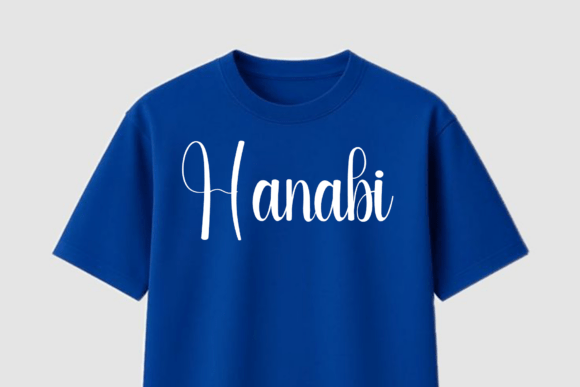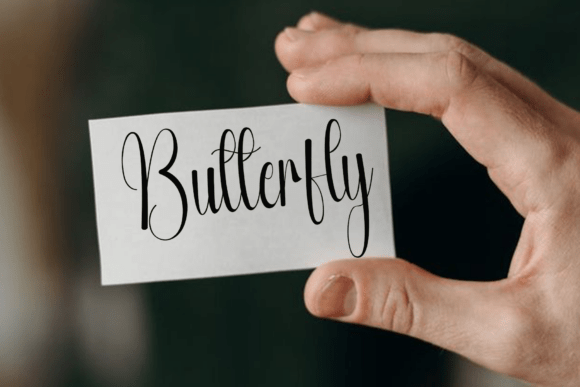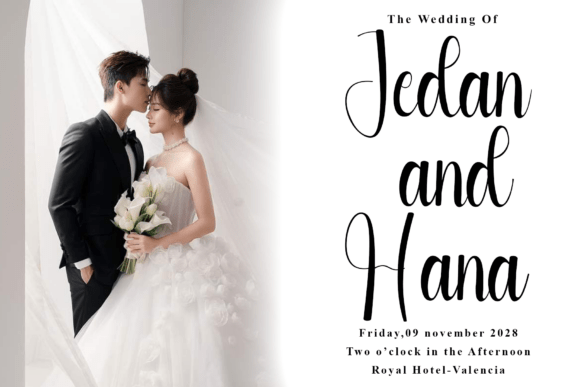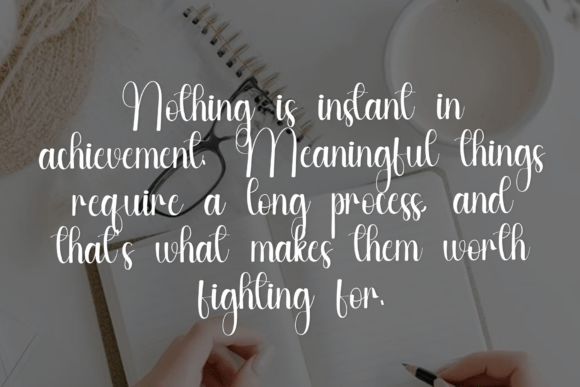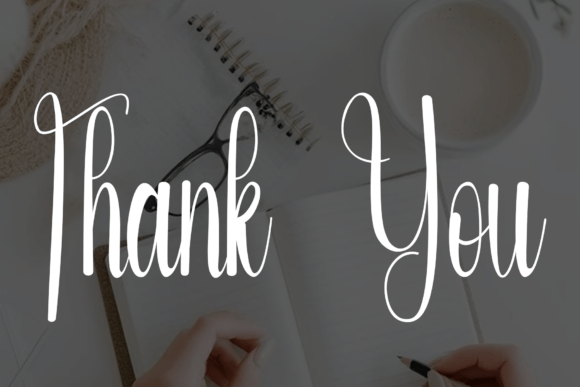
Introduction to Journals Font
As designers, we’ve all been there – staring at a blank page, trying to find the perfect font to capture the essence of our creative project. The search is over. Say hello to Journals Font, a stunning handwritten script that will elevate your designs and leave a lasting impression. Whether you’re working on a lifestyle branding project, creating a digital planner, or crafting a romantic wedding invitation, this versatile font is sure to bring a touch of elegance and sophistication to your work.
With its fluid loops and rhythmic baseline, Journals Font is a design resource that’s as beautiful as it is functional. Its high-quality design makes it perfect for designers looking for a professional yet deeply human aesthetic. And the best part? This beautiful font is available for free download, complete with a transparent background, making it easy to integrate into your designs.
Key Features of Journals Font
- High-quality font with a unique, elegant design suitable for creative projects.
- Perfect for use in journaling, scrapbooking, and other creative projects where a beautiful, elegant font is desired.
Honest Review: Journals Font
I recently stumbled upon the Journals Font, and I must say, it’s been a game-changer for my creative projects. This high-quality design resource is perfect for those who want to add a personal touch to their work.
- Unique and elegant design that adds a touch of sophistication to any project
- Only a limited number of font styles are available (5 in total)
- May not be suitable for large-scale commercial projects due to its personal, handwritten feel
Overall, I’m thoroughly impressed with the Journals Font. Its high-quality design and transparent background make it an excellent addition to any creative project. While it may have some limitations, I believe it’s a valuable resource for designers who want to add a personal touch to their work.
Journals Font
Journals Font is a versatile and high-quality design resource perfect for your next creative project. With a transparent background, this font is ideal for overlaying text on images or using as a standalone element in your design.
Insert Journals Font into your PowerPoint or Word document to add a touch of elegance and sophistication. This font is perfect for presentations, reports, or any document that requires a professional look.
Experiment with different font sizes, colors, and styles to create unique and eye-catching designs. You can also use Journals Font in combination with other design elements to create a cohesive look.
Journals Font is ideal for a variety of creative projects, including: